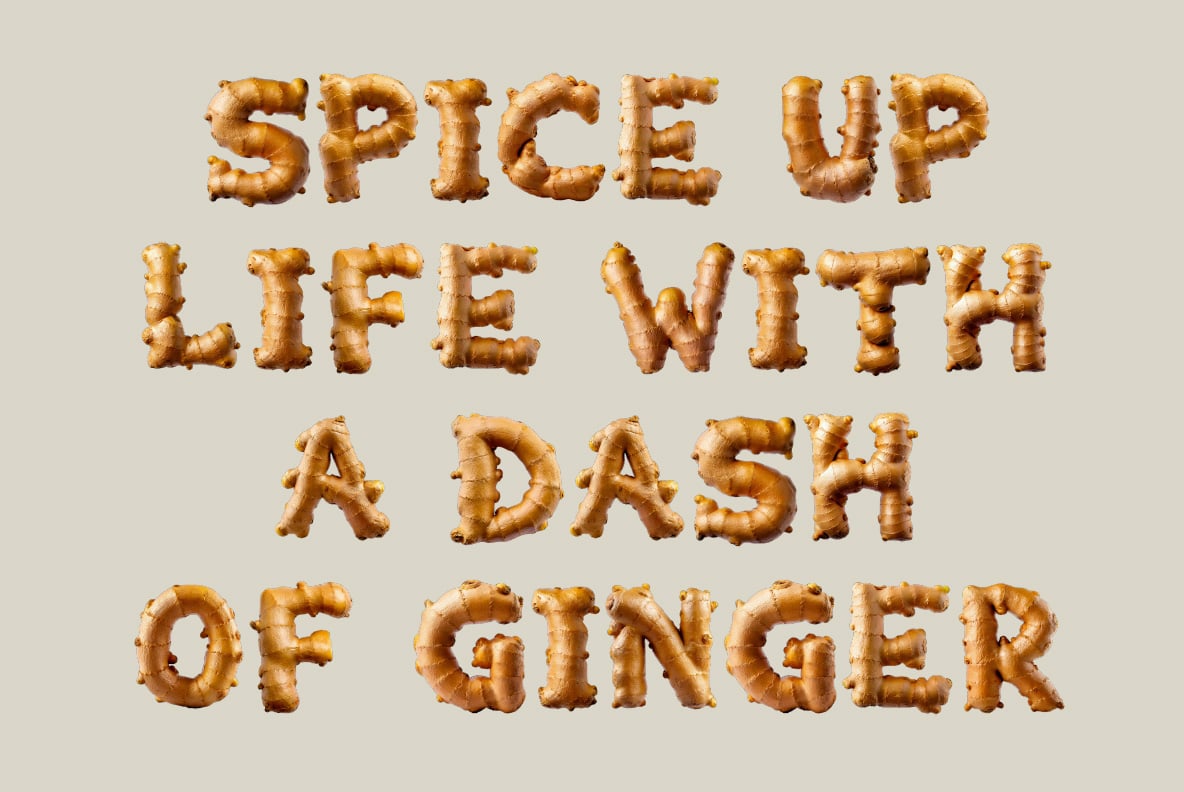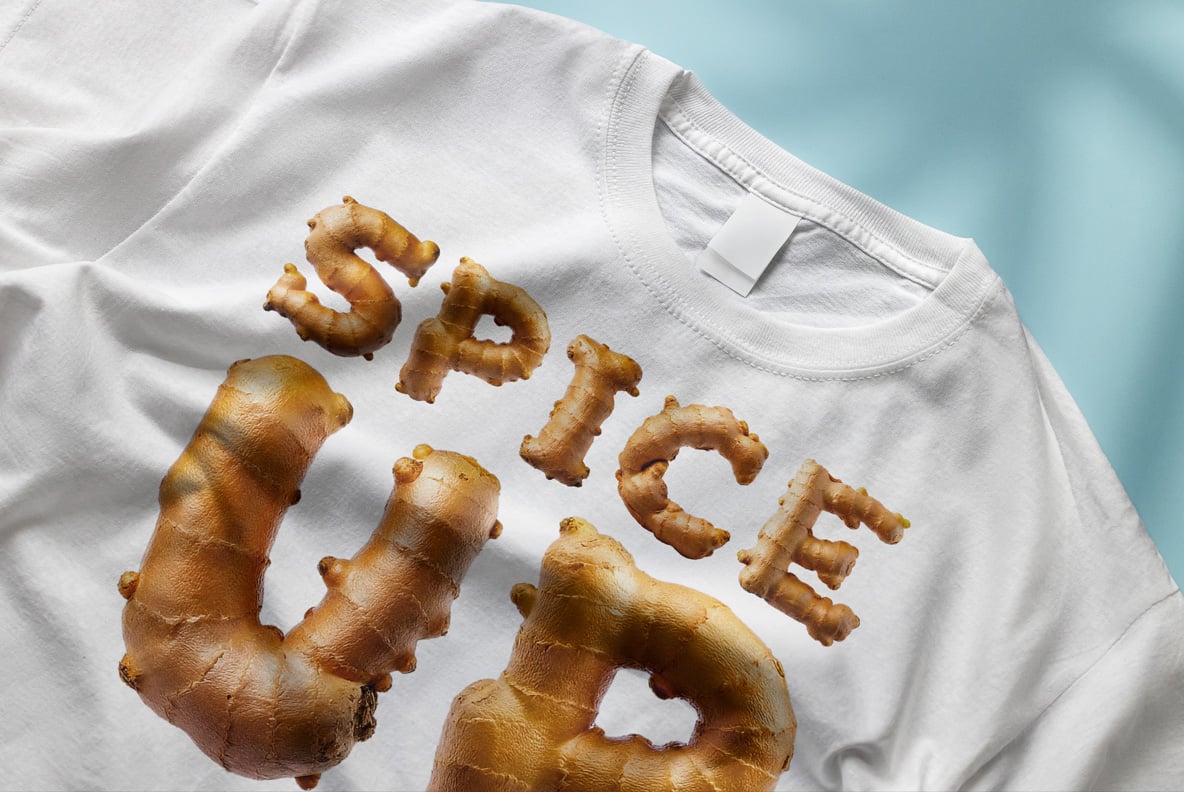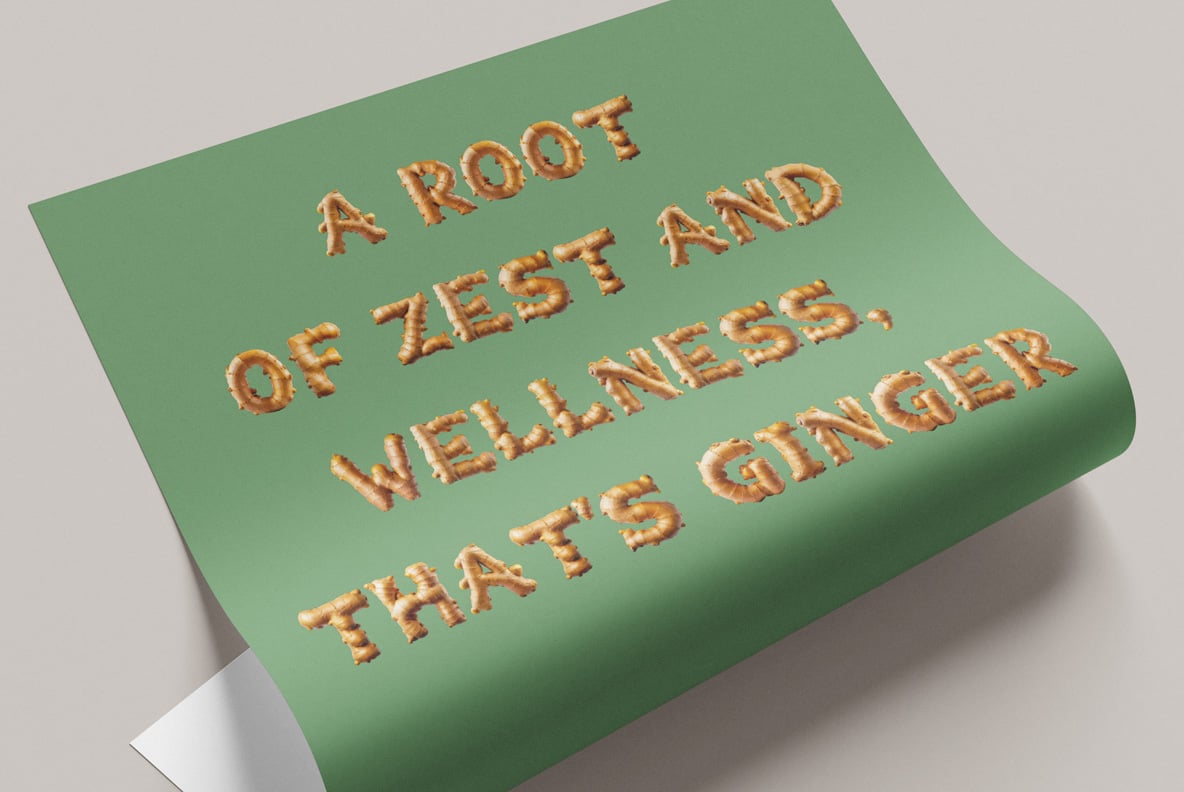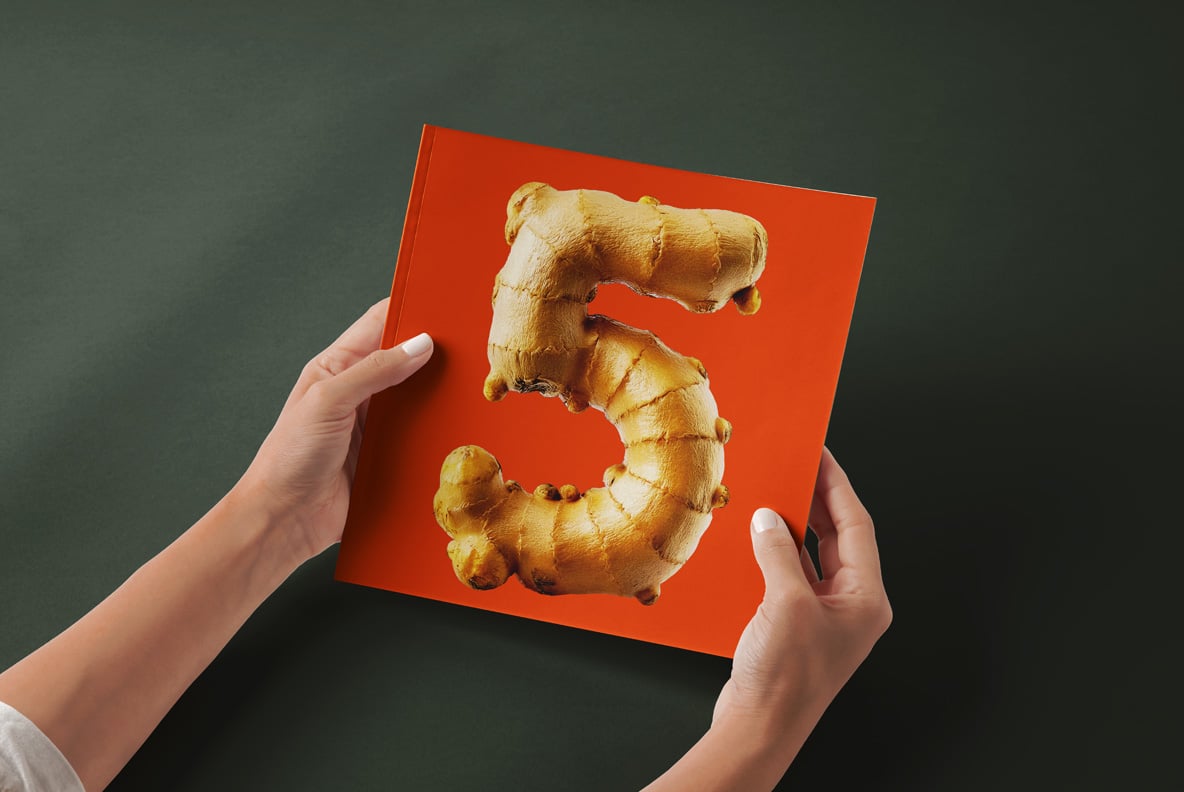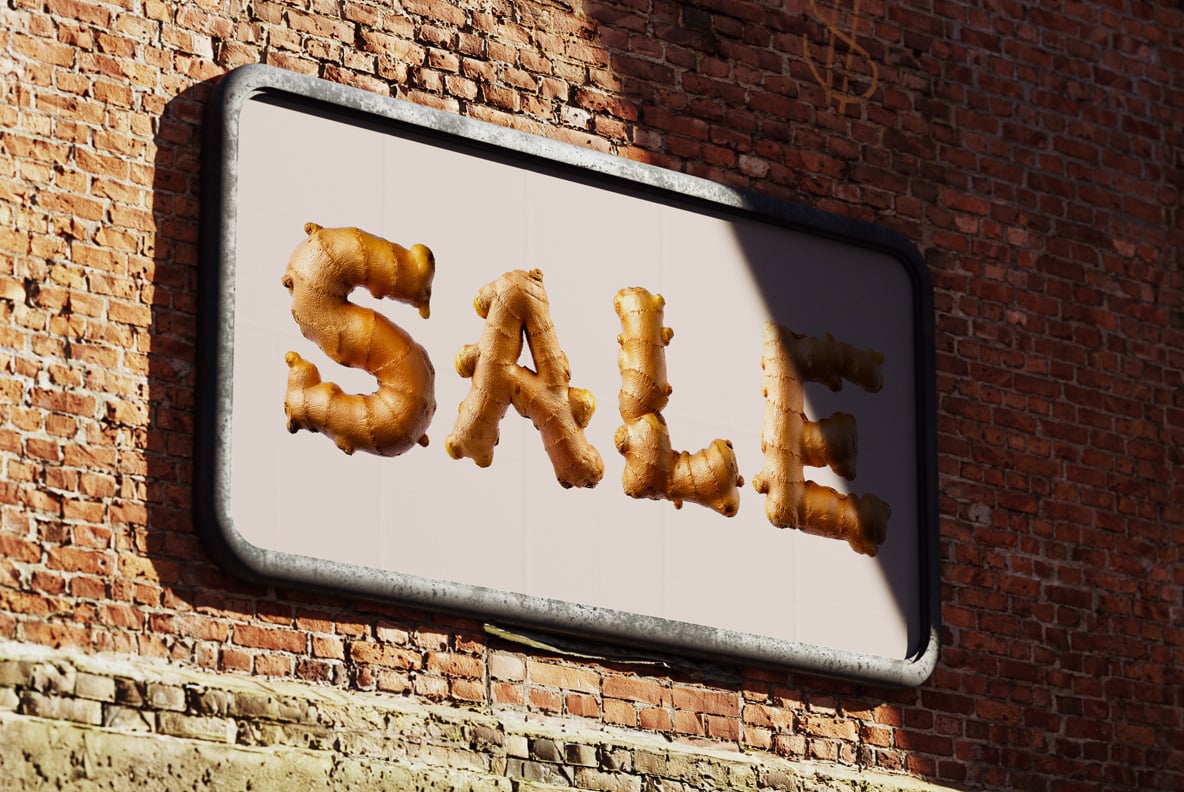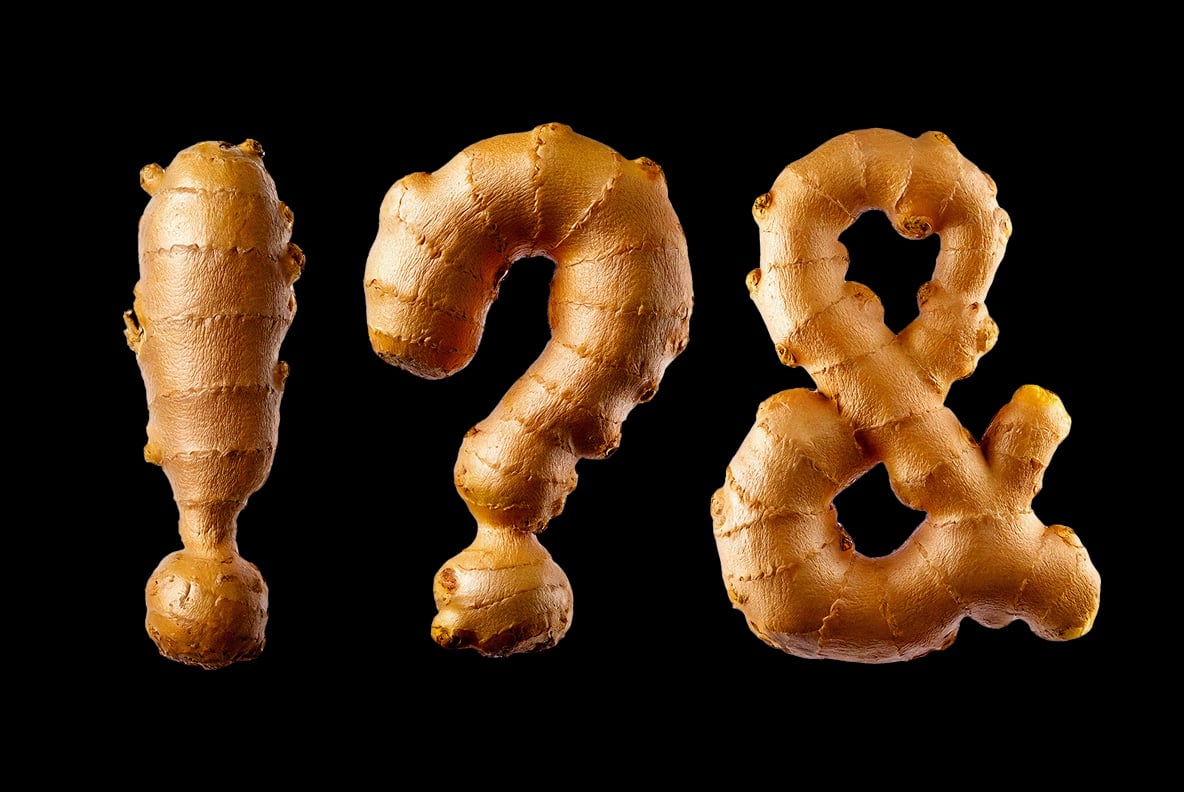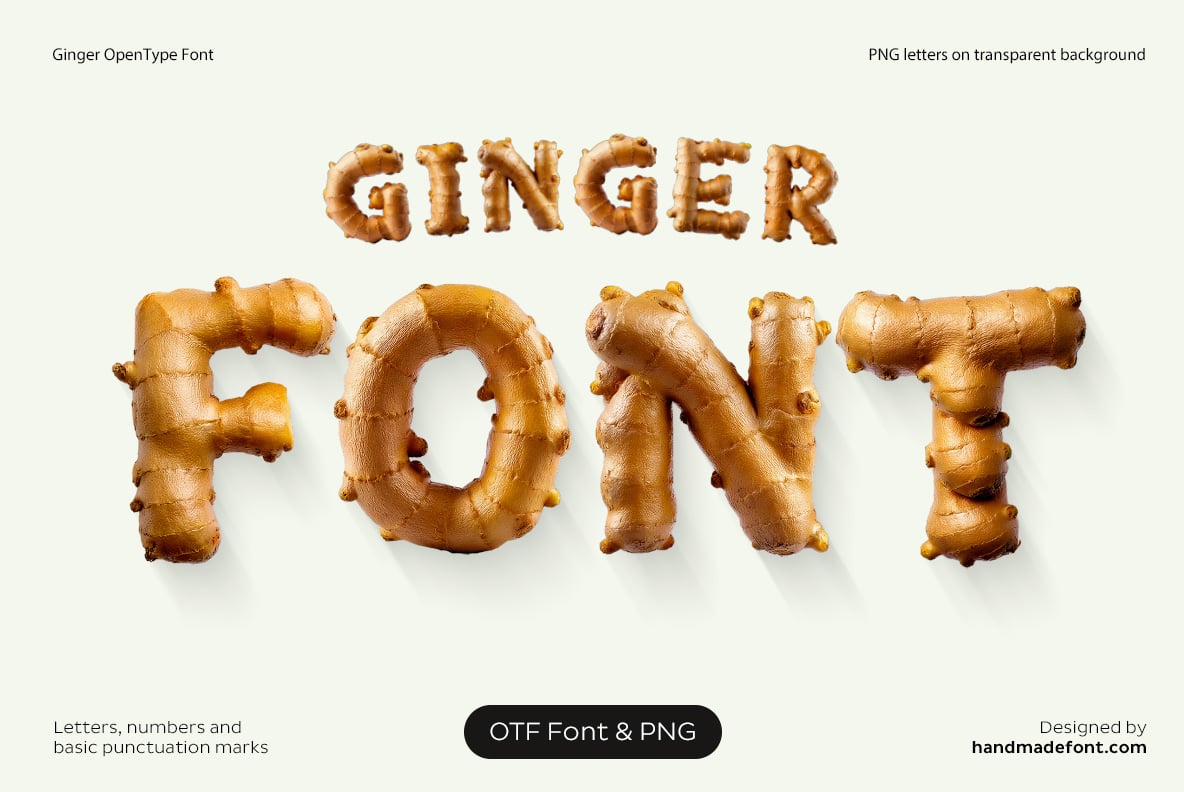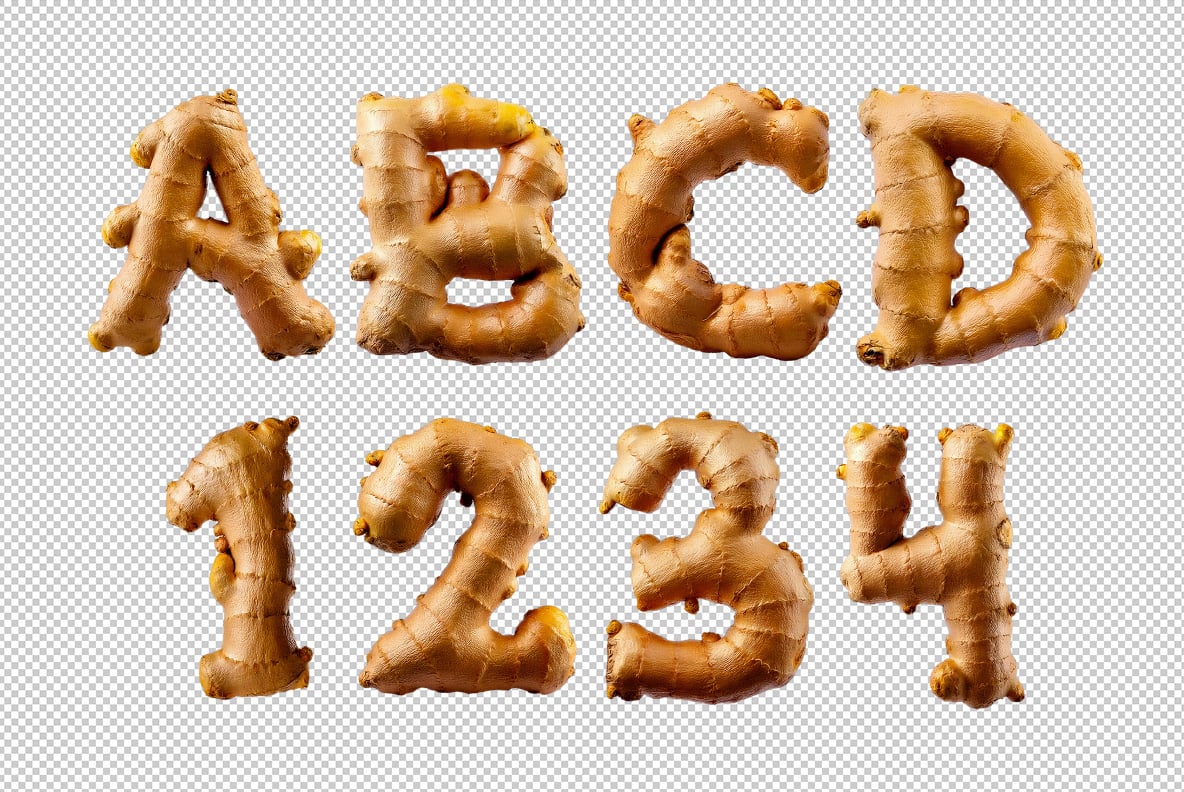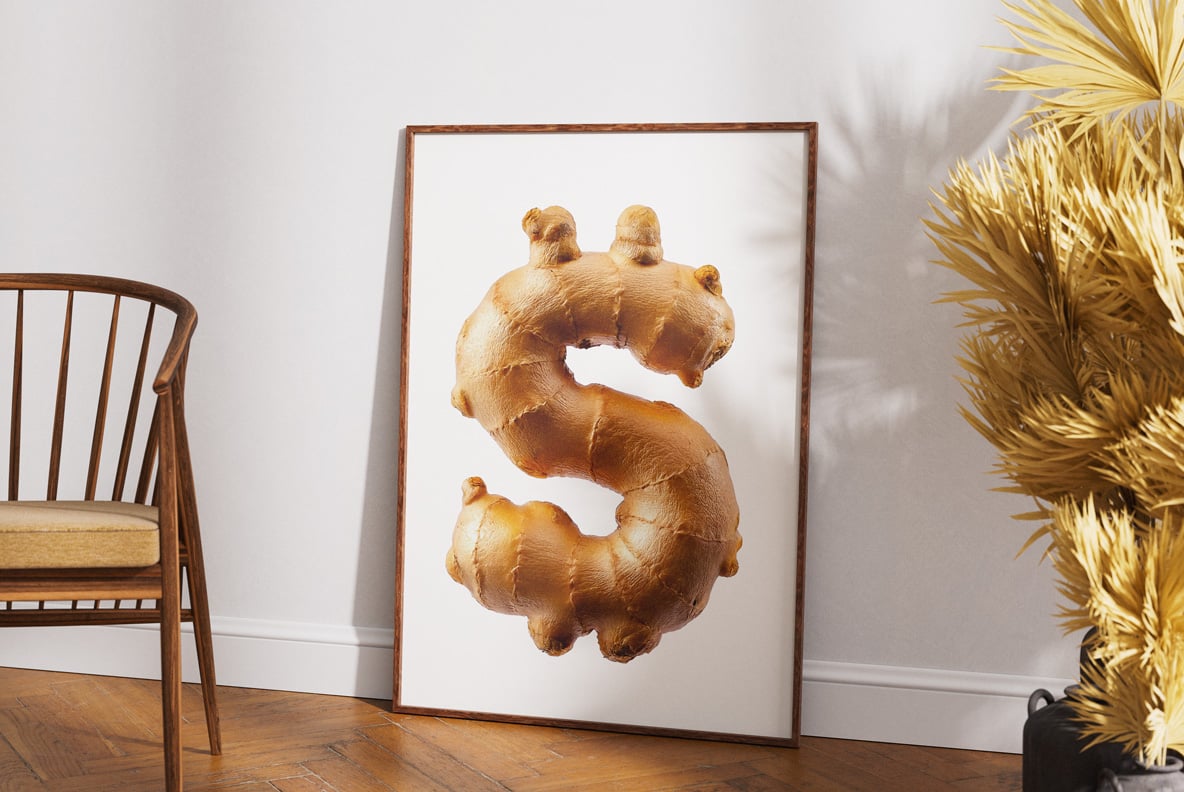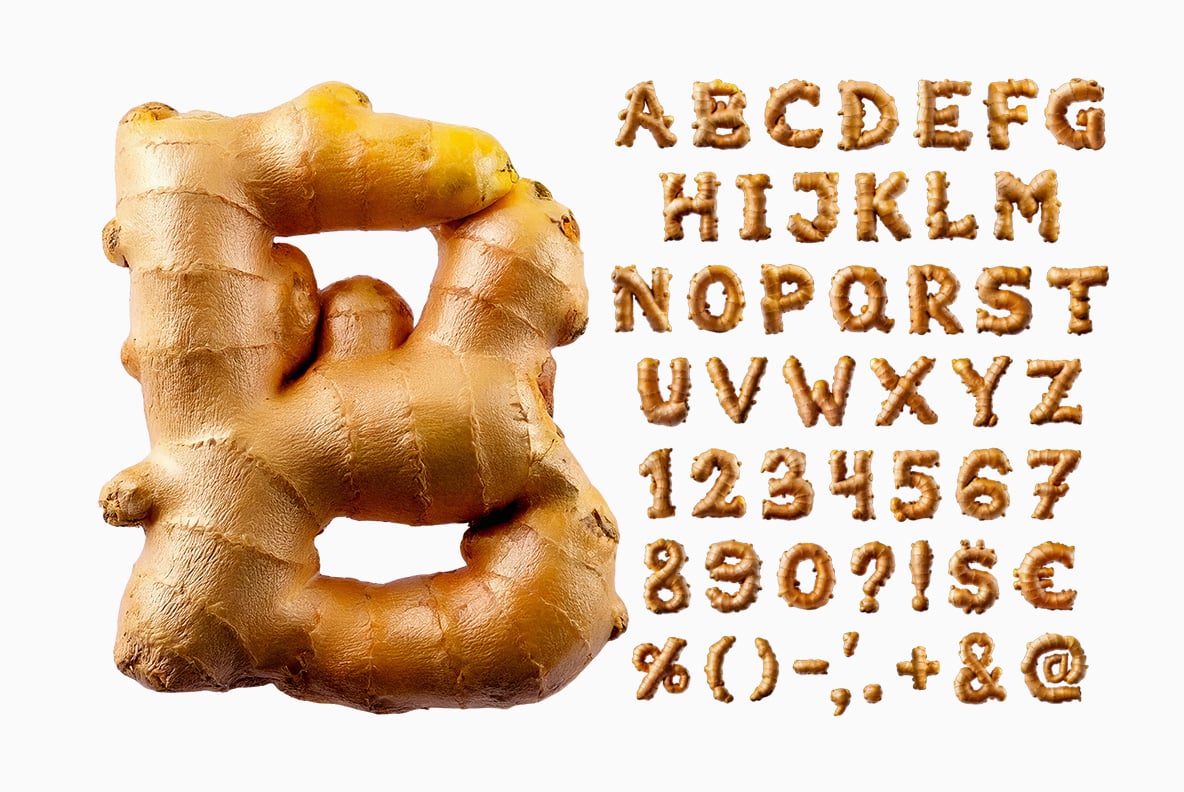
Ginger Font
Lettering gets a flavorful twist with Ginger Font—a unique alphabet crafted entirely from fresh ginger! Spicy, bold, and aromatic, each letter embodies the warm, earthy tones and textures of ginger root. Perfect for creative projects that need a dash of originality, this font adds zest to designs, from food branding to rustic themes. Whether you're crafting a blog post, poster, or logo, **Ginger Font** delivers a deliciously distinctive style that’s as fresh as its inspiration.
A high definition OpenType Font. Contains uppercase characters, numerals and basic punctuation. (Draw height roughly 800 pixels). All letters and glyphs that comprises this font you can see on the preview.
Others : ! ? - . ' $ € % & #